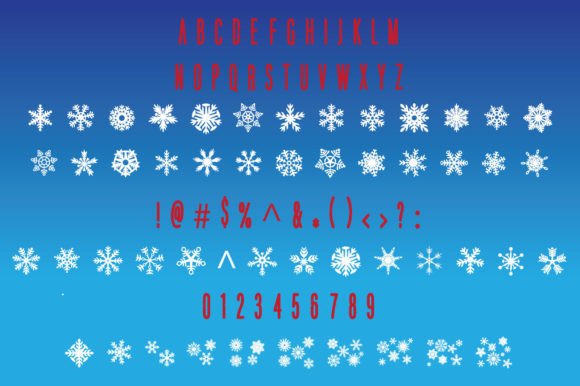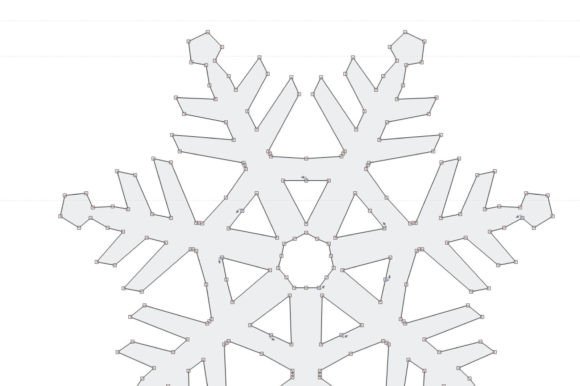
Snowflakes Font
Snowflakes is a delightful and festive dingbats font that captures the enchantment of winter and adds a touch of magic to your designs. With its collection of unique snowflake glyphs, this font is perfect for any winter-themed event, holiday cards, and various cold-weather crafts.
The snowflake illustrations in the Snowflakes font come in a variety of intricate designs, each showcasing the beauty and individuality of a snowflake. From delicate and lacy patterns to more intricate and geometric shapes, these glyphs evoke the wondrous and ethereal nature of snowfall.
By incorporating Snowflakes into your designs, you can create captivating winter-themed posters that instantly draw attention. Whether you’re promoting a holiday event, a winter festival, or a seasonal sale, the snowflake glyphs in this font provide a charming and eye-catching element that captures the spirit of the season.
Holiday cards also benefit from the Snowflakes font, as it allows you to add a whimsical touch to your greetings. From elegant and sophisticated designs to playful and cheerful compositions, the snowflake glyphs bring a sense of joy and wonder to your holiday messages.
Additionally, if you enjoy crafting during the winter months, Snowflakes can be a fantastic asset. Whether you’re creating handmade decorations, winter-themed scrapbooks, or personalized gifts, incorporating the Snowflakes font into your projects adds a special touch of winter magic.
The versatility of the Snowflakes font extends beyond event posters and holiday cards. You can also use it for digital designs, social media graphics, website elements, and more. The snowflake glyphs can be resized, layered, and combined to create unique compositions that suit your specific needs.
Whether you’re aiming for a cozy and warm atmosphere or a frosty and icy vibe, the Snowflakes font provides you with a wide range of snowflake options to choose from. Its cute and festive style adds a whimsical and joyful element to your designs, instantly evoking the enchantment of a winter wonderland.
In summary, Snowflakes is a charming and versatile dingbats font that brings the beauty and magic of snowflakes to your winter-themed designs. From event posters to holiday cards and cold-weather crafts, this font allows you to infuse your projects with the delightful allure of winter. Let Snowflakes add a touch of whimsy and enchantment to your creations and make them sparkle with seasonal charm.